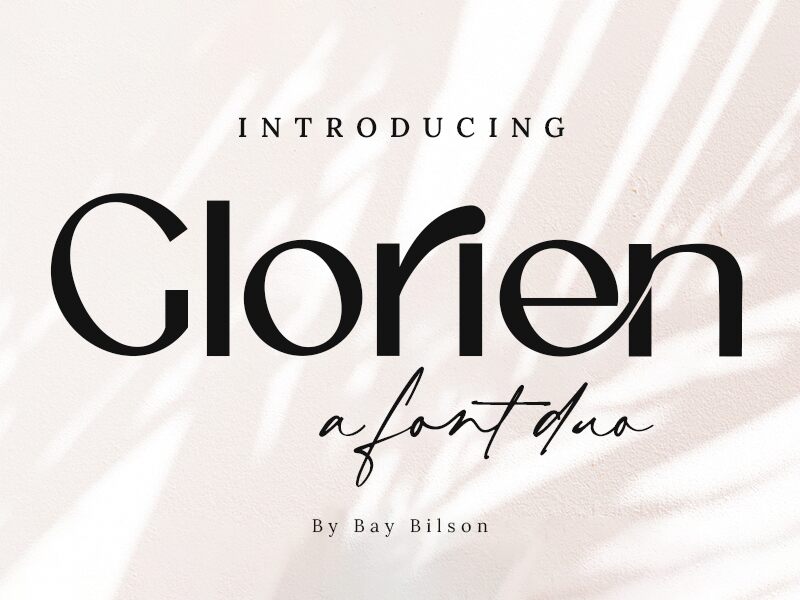
Glorien Script
Glorien Script font is a light, handwritten typeface designed by Baybilson. This modern font has a casual grace, a sophisticated appearance, and an elegant aesthetic that stands out in any design. Its basic shape is flowing with subtle details that contribute to the overall pleasant appearance of your texts.
Examples of works you can develop using this free script include business cards and wedding invitations. You can also use it for branding projects, beauty product packaging, logo design, posters, banners, advertisements in magazines or newspapers. Labels and signboards would also great areas where Glorien Script really shines through!